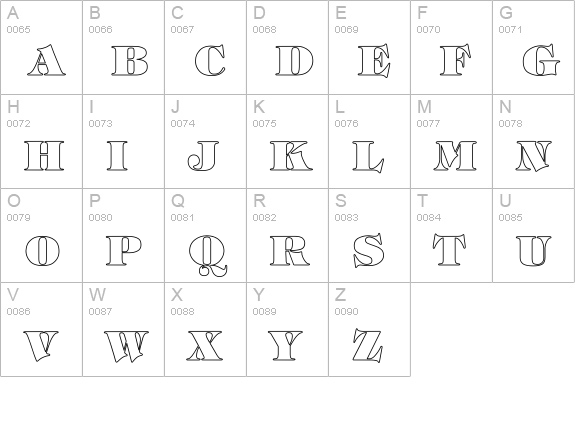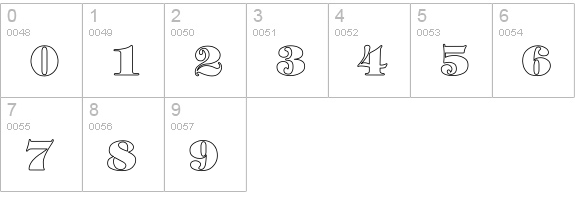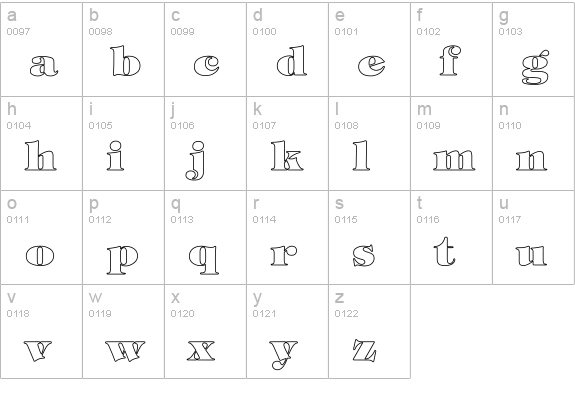
Tiffany-Heavy-Normal Hollow is a heavy, high-impact variant in the Tiffany typeface family \xE2\x80\x94 well suited to high-impact headlines, posters, and display advertising.
Tiffany-Heavy-Normal Hollow font is a stunning display typeface that exudes elegance and sophistication. Its bold and heavy letterforms are intricately designed with a unique hollow effect, creating a sense of depth and intricacy. This font is perfect for creating eye-catching headlines, logos, and branding materials. With a touch of modernity and a hint of vintage charm, Tiffany-Heavy-Normal Hollow font stands out from the crowd and adds a touch of class to any design project. Its clean lines and balanced proportions make it highly legible, ensuring that your message is conveyed effortlessly. What sets Tiffany-Heavy-Normal Hollow font apart is that it is not only visually appealing but also freely available to download at FontsMarket.com. This means that you can enhance your designs with this extraordinary typeface without any cost. It is a true gem for designers, allowing them to experiment and explore their creativity without breaking the bank. Whether you are working on a personal project or a professional endeavor, Tiffany-Heavy-Normal Hollow font is the perfect choice. Its versatility and timeless appeal make it suitable for a wide range of applications, from invitations and posters to websites and advertising materials. Experience the beauty and versatility of Tiffany-Heavy-Normal Hollow font today. Download it for free at FontsMarket.com and unlock a world of possibilities for your design projects.